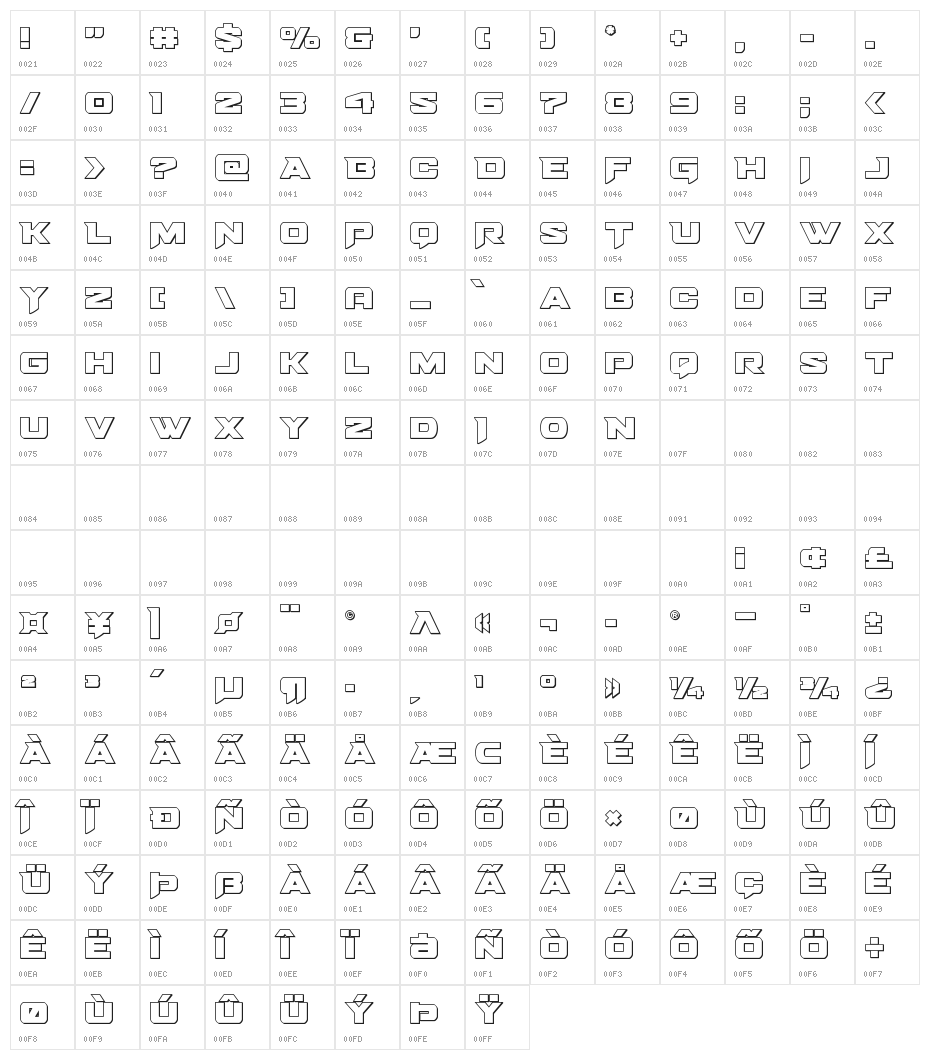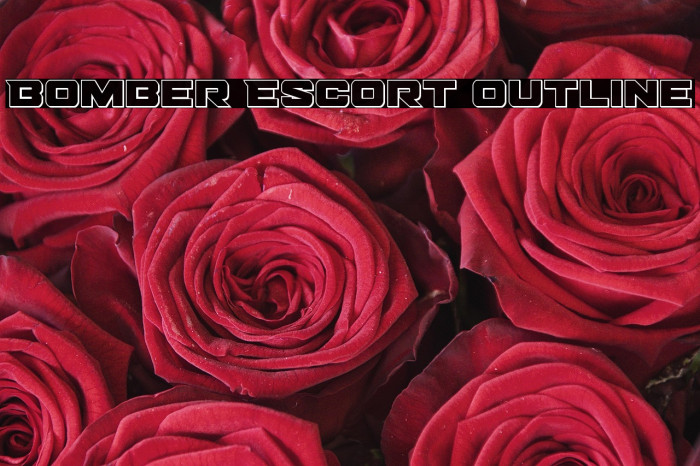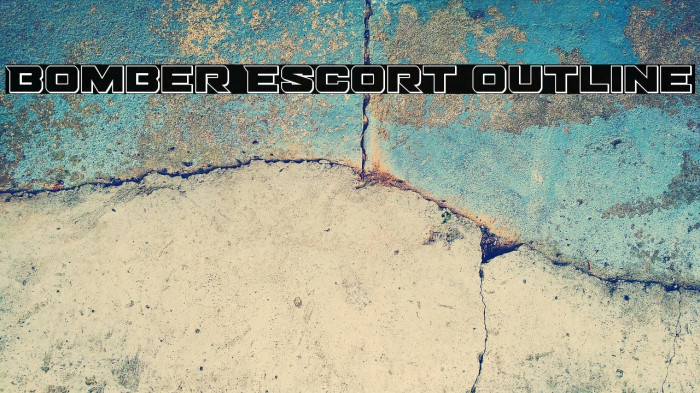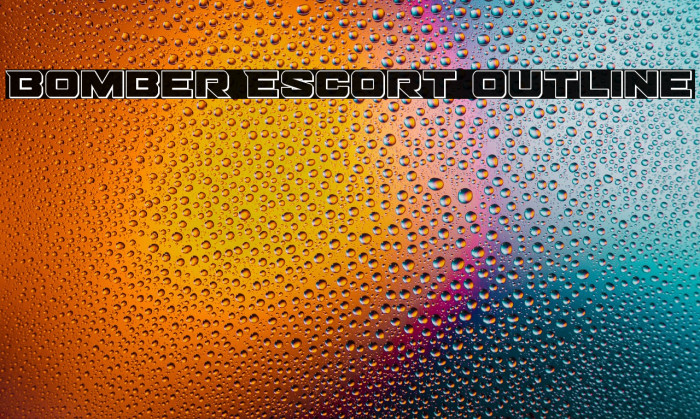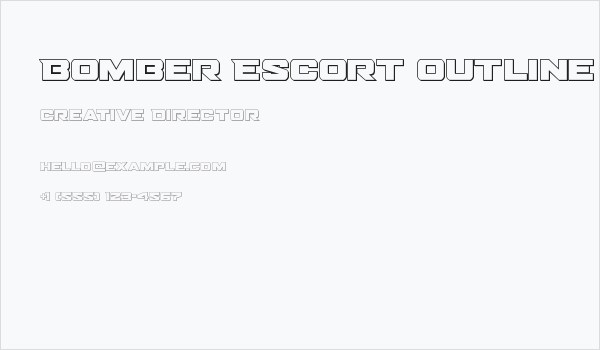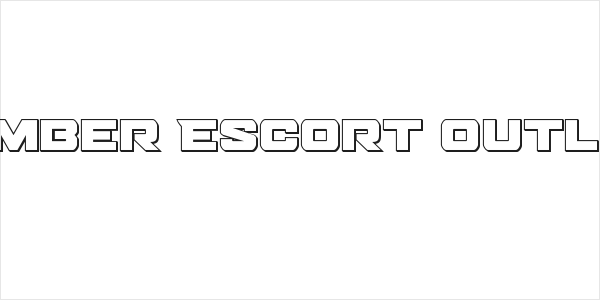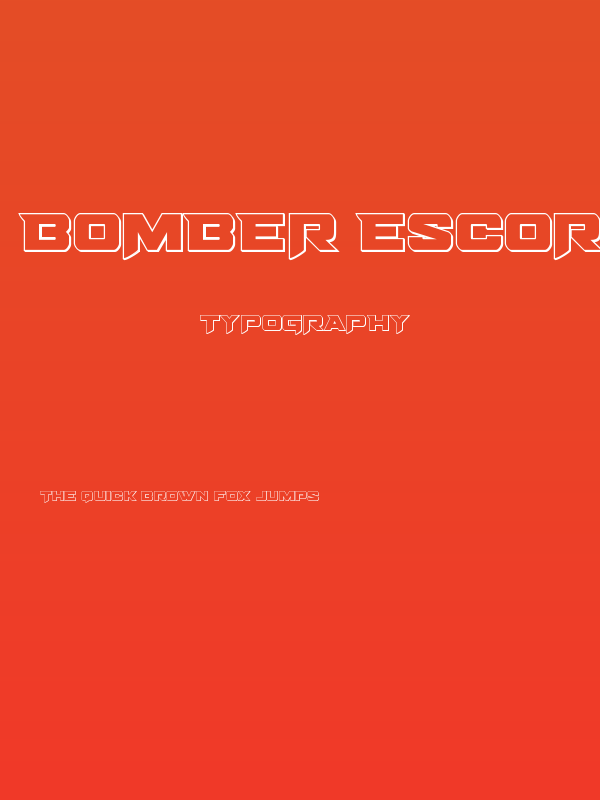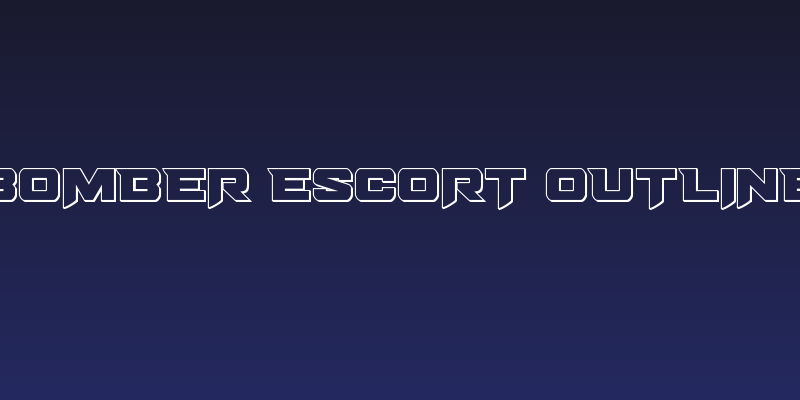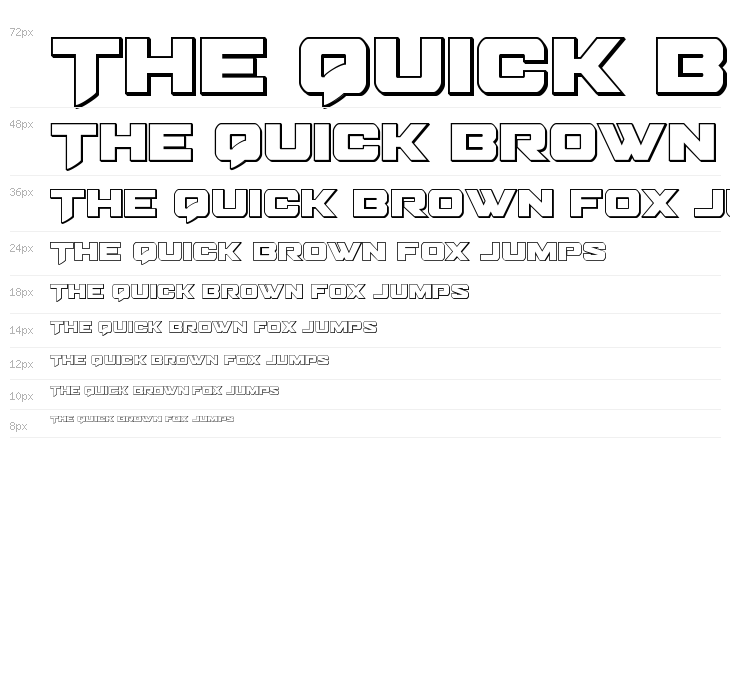
Bomber Escort Outline Font
Bomber Escort Outline Description
This font features a bold, outlined style with a futuristic and angular design. The characters are uppercase and have a geometric structure, with sharp edges and a blocky appearance. The outline effect gives it a three-dimensional look, making it stand out on any background. The font maintains consistent line thickness throughout, providing a uniform and cohesive appearance. It is well-suited for designs that require a modern and edgy aesthetic, such as gaming, technology, or sci-fi themes. The characters are evenly spaced, ensuring readability while maintaining its unique style.
| Proposed Projects | Ideal for gaming titles, tech branding, sci-fi posters, and modern logos. |